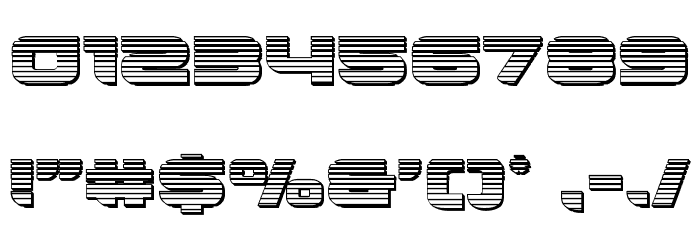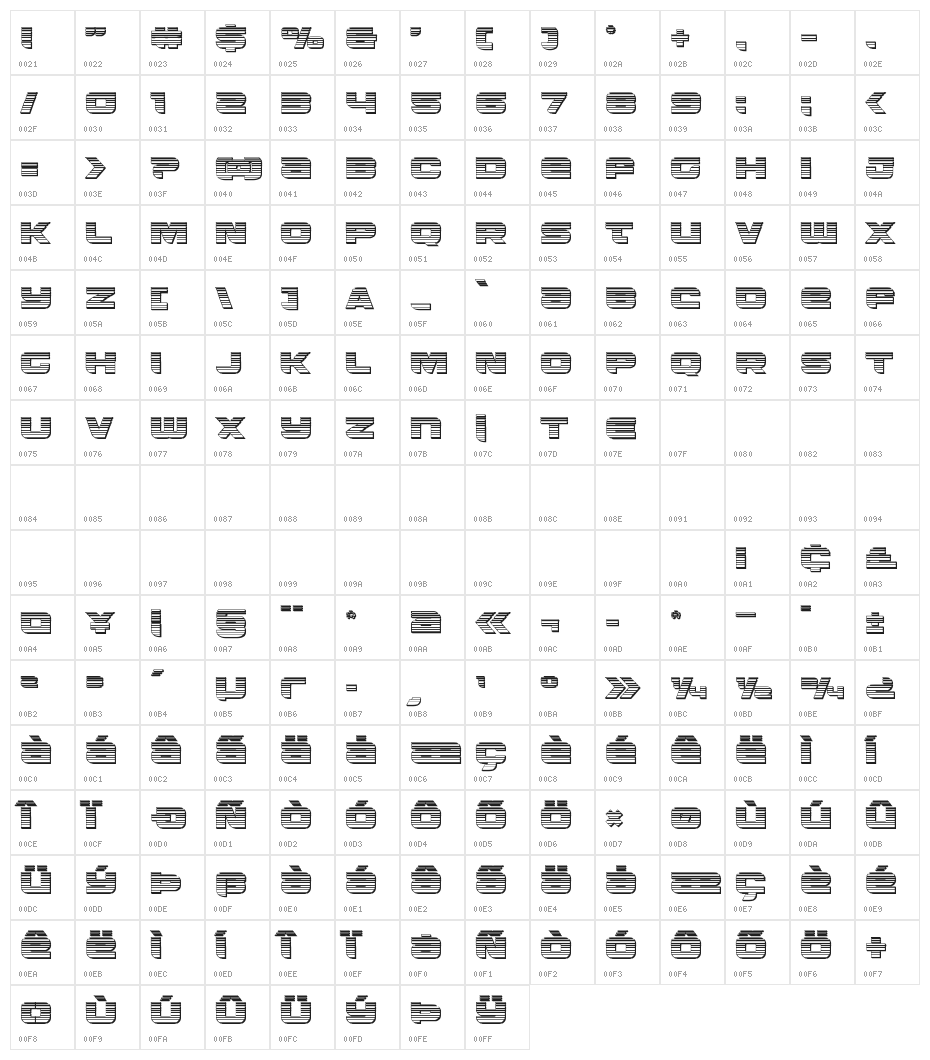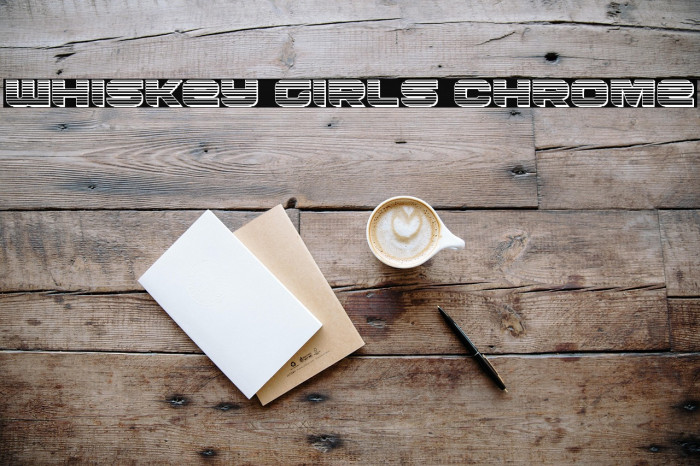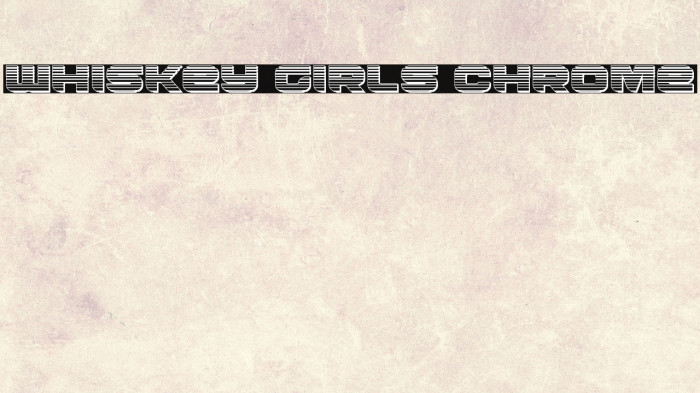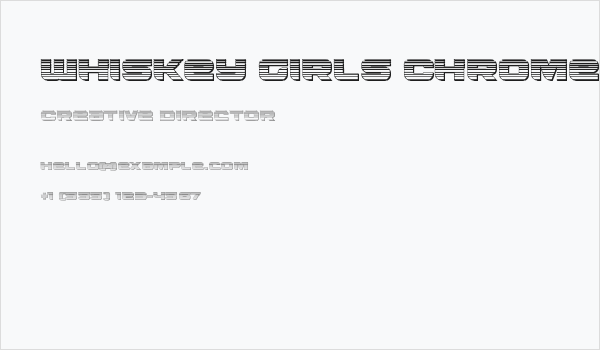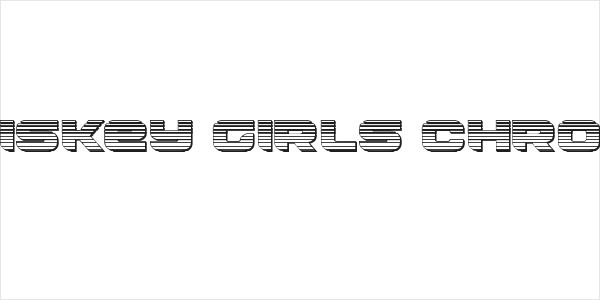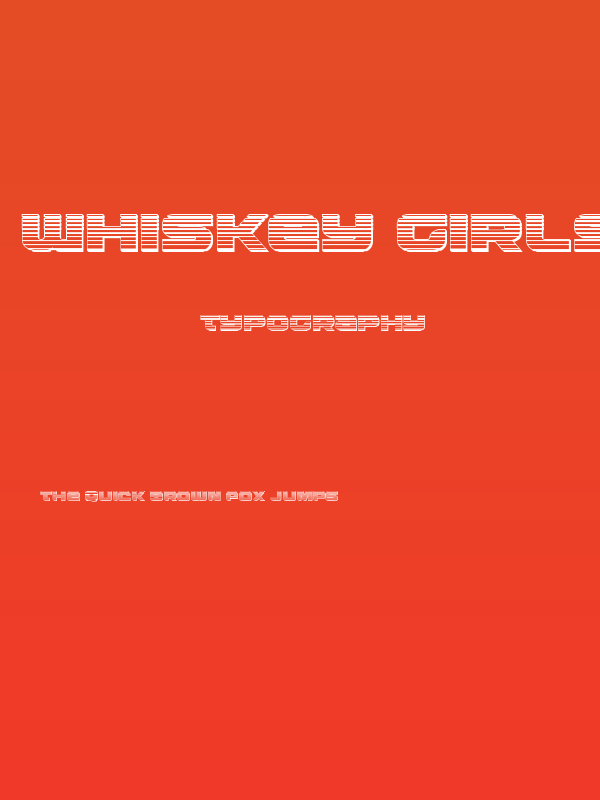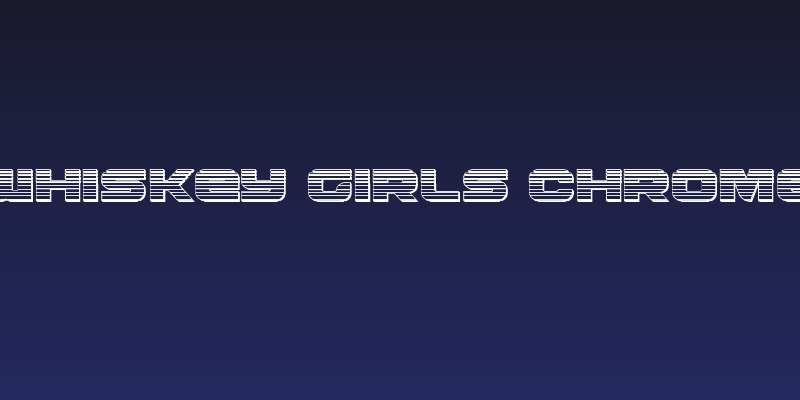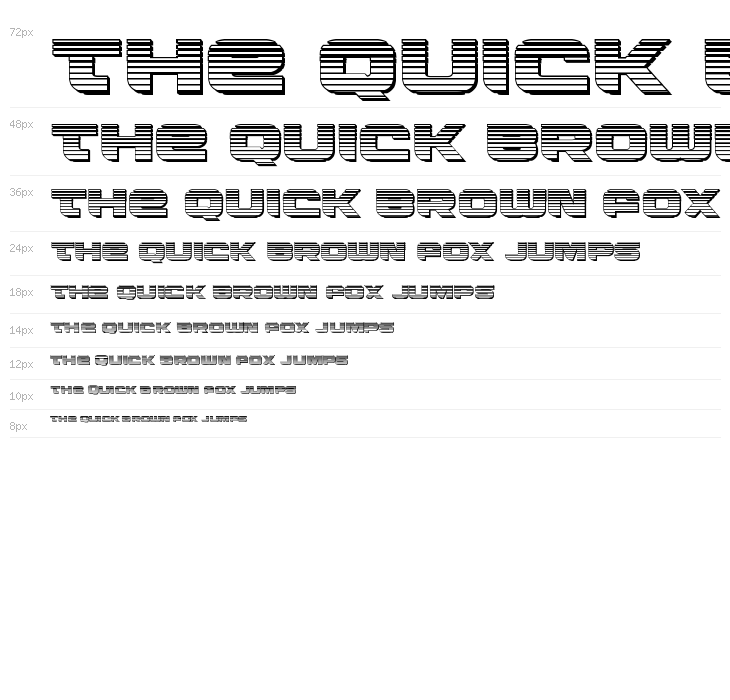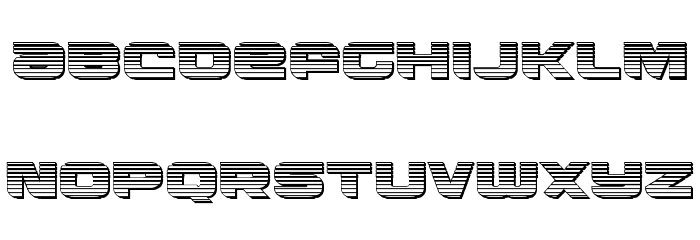
Whiskey Girls Chrome Font
Whiskey Girls Chrome Description
This font features a bold, decorative style with a unique striped pattern running horizontally across each character. The design is modern and eye-catching, making it ideal for projects that require a strong visual impact. The uppercase and lowercase letters maintain a consistent width, giving the font a uniform appearance. The numerals and special characters are equally stylized, ensuring a cohesive look across all text elements. The font's distinctiveness lies in its layered, chrome-like effect, which adds depth and dimension to the characters.